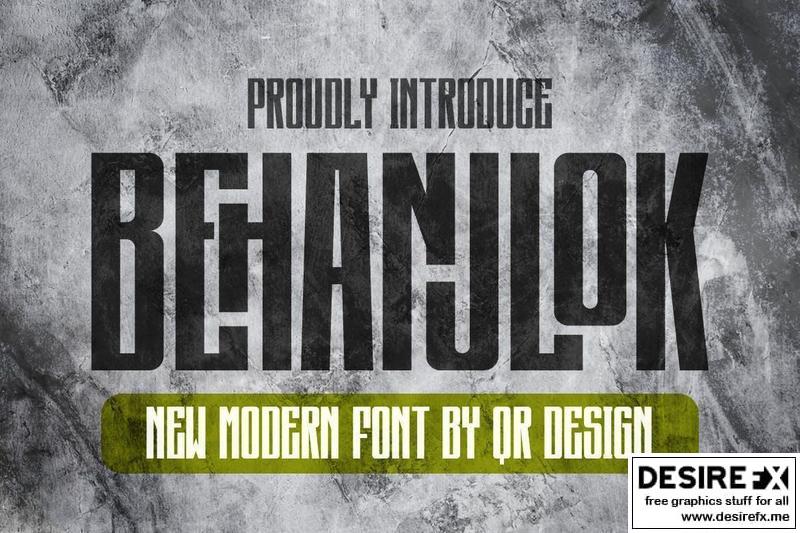
Behanjlok Font is a bold and authentic display font.
The font is suitable for any branding project like logo, t-shirt printing, e-sport, and many more.
Outstanding in a wide range of contexts.